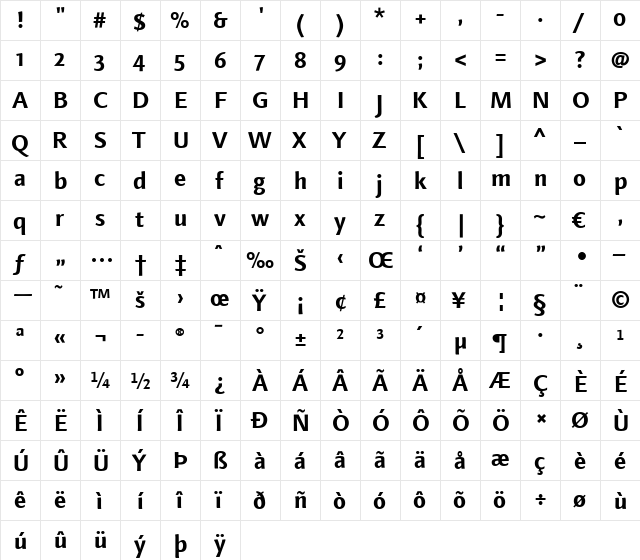
LTFinnegan OsF Regular Bold
| Designer | Juergen Weltin |
Design Context for LTFinnegan OsF Regular Typeface
LTFinnegan OsF Regular takes a measured approach to typography — its balanced proportions and neutral character make it a reliable workhorse for both digital and print work. Its bold stroke weight gives it real presence on the page.